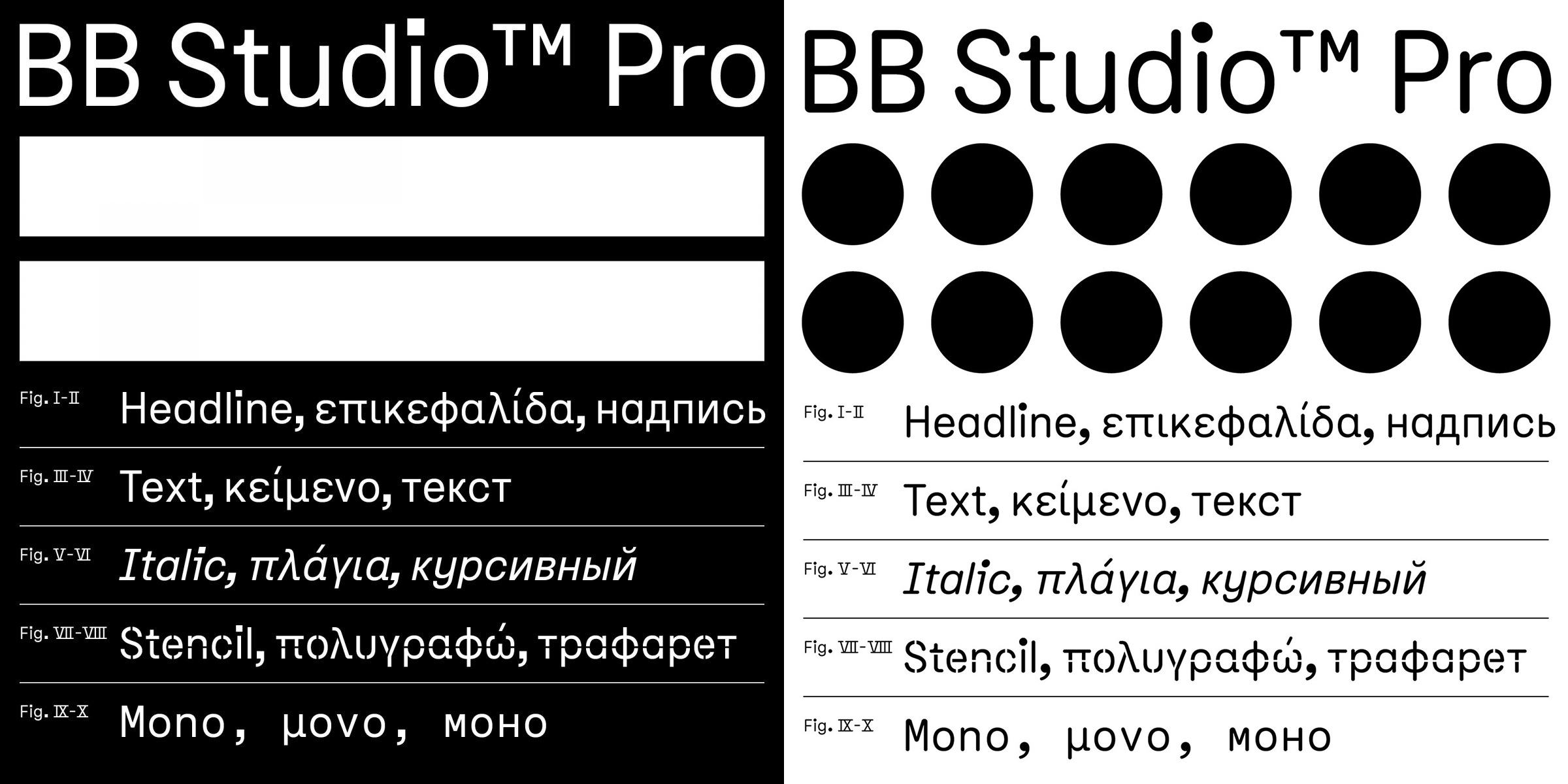
BB Studio Pro Font
BB Studio Pro Font is perfect for creative agency branding, design studio portfolios, professional presentations, modern logos, advertising campaigns, architectural signage, contemporary art exhibitions, digital interfaces, fashion brand identity, photography studios, graphic design materials, and sophisticated projects that require clean, versatile typography with professional studio quality.
What makes BB Studio Pro Font so exciting is its perfect balance of creative sophistication and professional reliability that embodies the essence of modern design studio excellence. This typeface features clean, contemporary letterforms with subtle geometric influences and optimized spacing that creates immediate visual clarity while maintaining distinctive character. The font's studio-quality craftsmanship and versatile nature make it ideal for creative professionals who demand typography that performs flawlessly across all media while expressing innovative design sensibilities.
BB Studio Pro Font typically comes in multiple weights and styles including Thin, Light, Regular, Medium, Semi-Bold, Bold, and Black variations, along with their corresponding Italic counterparts. Professional versions often include extended character sets, OpenType features, small caps, and comprehensive international language support that provide complete typographic solutions for global creative projects.
Whether you're developing creative agency identity, designing professional portfolios, or creating contemporary brand materials, BB Studio Pro Font delivers exceptional versatility and sophistication that resonates with discerning audiences who appreciate quality design and creative excellence. Its clean architecture works beautifully across both digital and print applications, maintaining its professional appeal at any size or context.
The precisely engineered letterforms of BB Studio Pro Font showcase the highest standards of contemporary typography design with particular attention to creative industry requirements. Each character has been meticulously crafted to ensure optimal performance in professional design environments while delivering the sophisticated aesthetic that creative professionals demand for their most important projects.